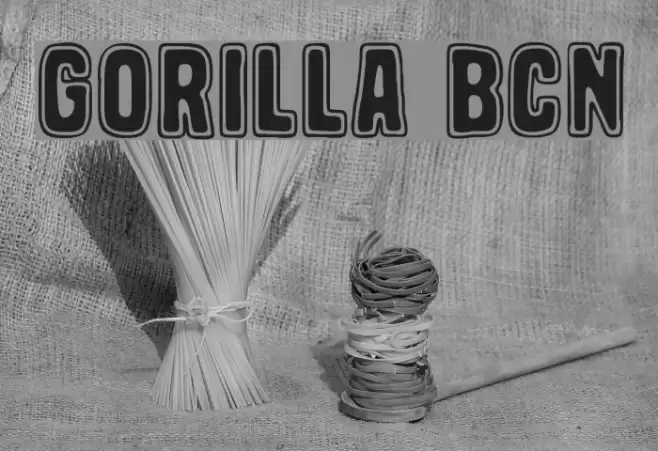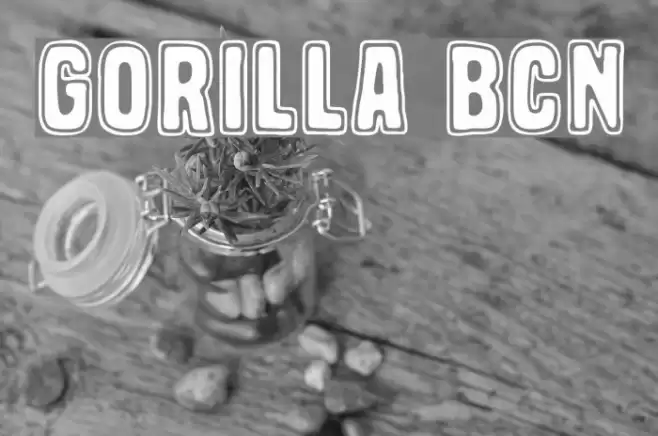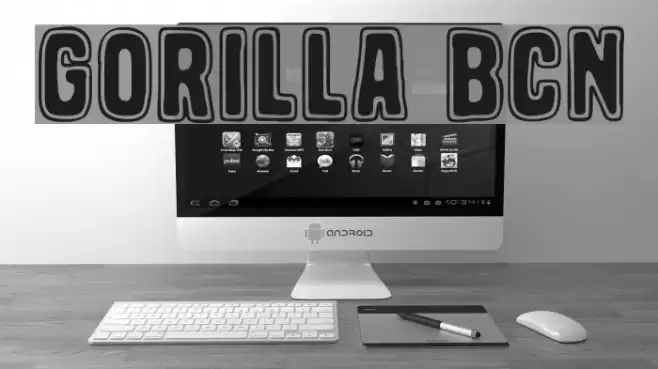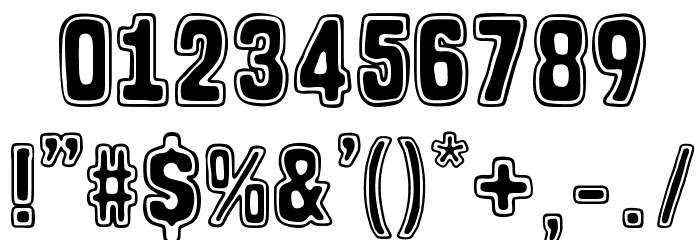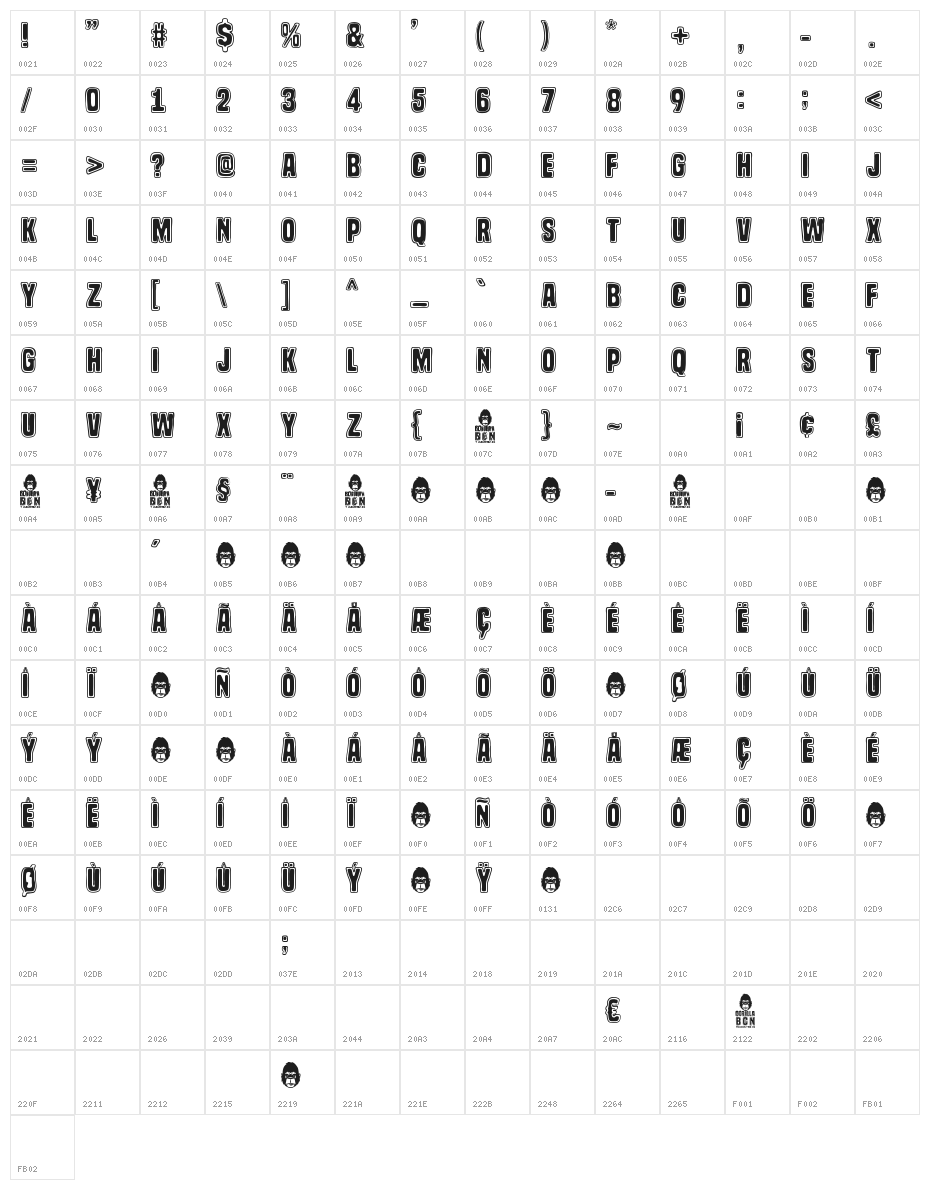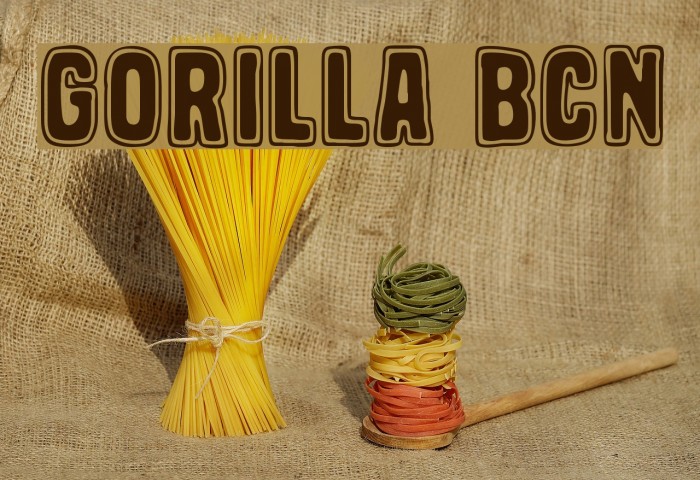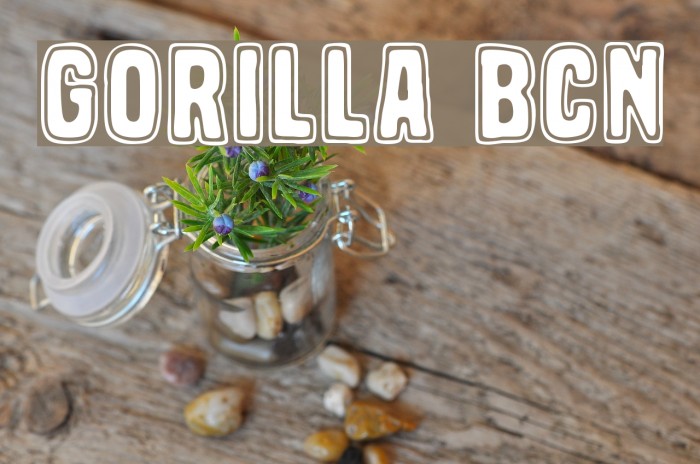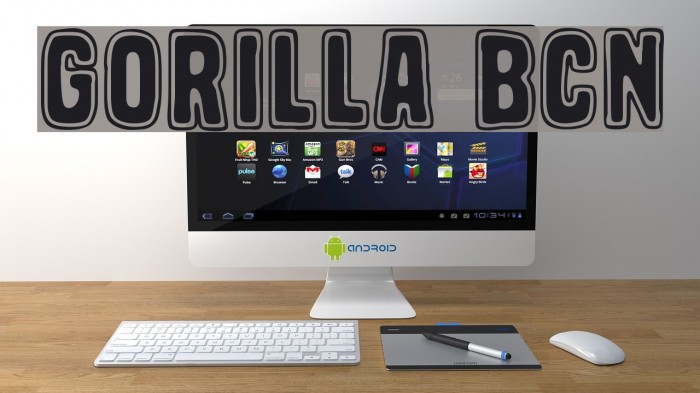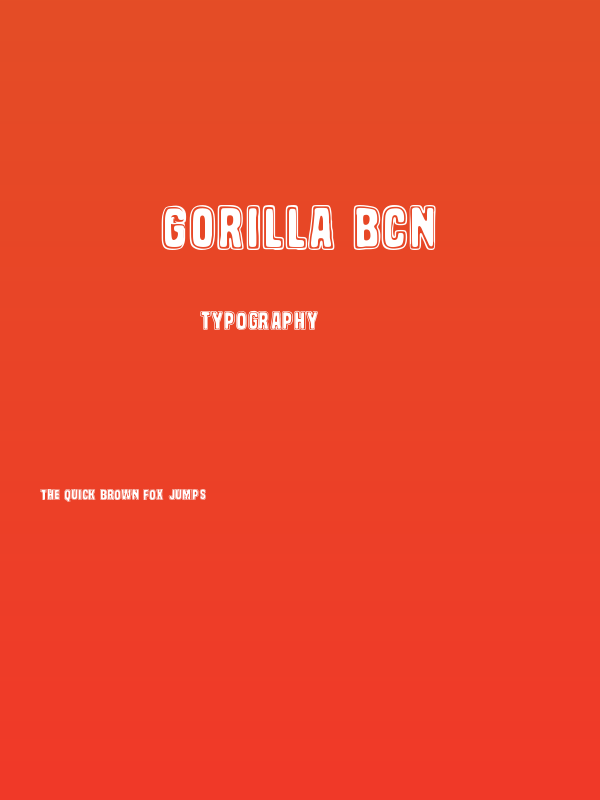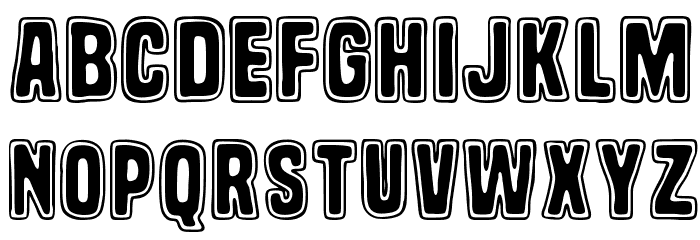
Gorilla BCN Font
Gorilla BCN Description
This font features bold, thick letters with a strong outline, creating a striking and impactful appearance. The characters are uniformly wide, with a playful and energetic style that commands attention. The uppercase and lowercase letters maintain a consistent design, enhancing readability while adding a touch of fun. The numbers and special characters follow the same bold and outlined aesthetic, making them stand out distinctly. This font is ideal for projects that require a lively and bold statement, such as posters, headlines, or branding materials.
A bold, outlined font with a playful and energetic style from Uncategorized fonts.
- Proposed Projects: Ideal for posters, headlines, branding, and any design needing a bold statement.